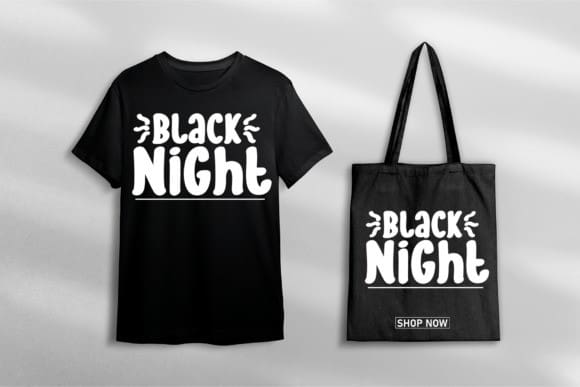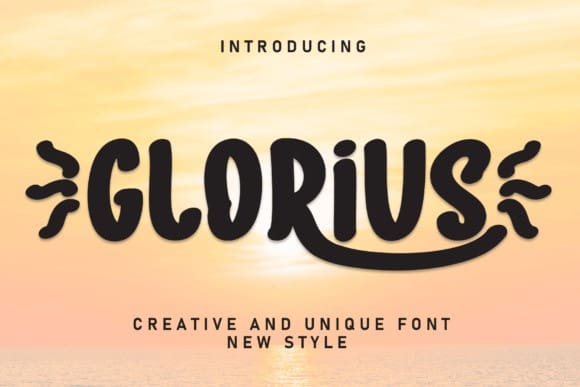
Glorius Display Font
Glorius Display Font is a sweet and friendly handwritten font. Fresh and casual, this font is ideal for writing wedding invitations, cards, or any other design that might need a lovely touch.